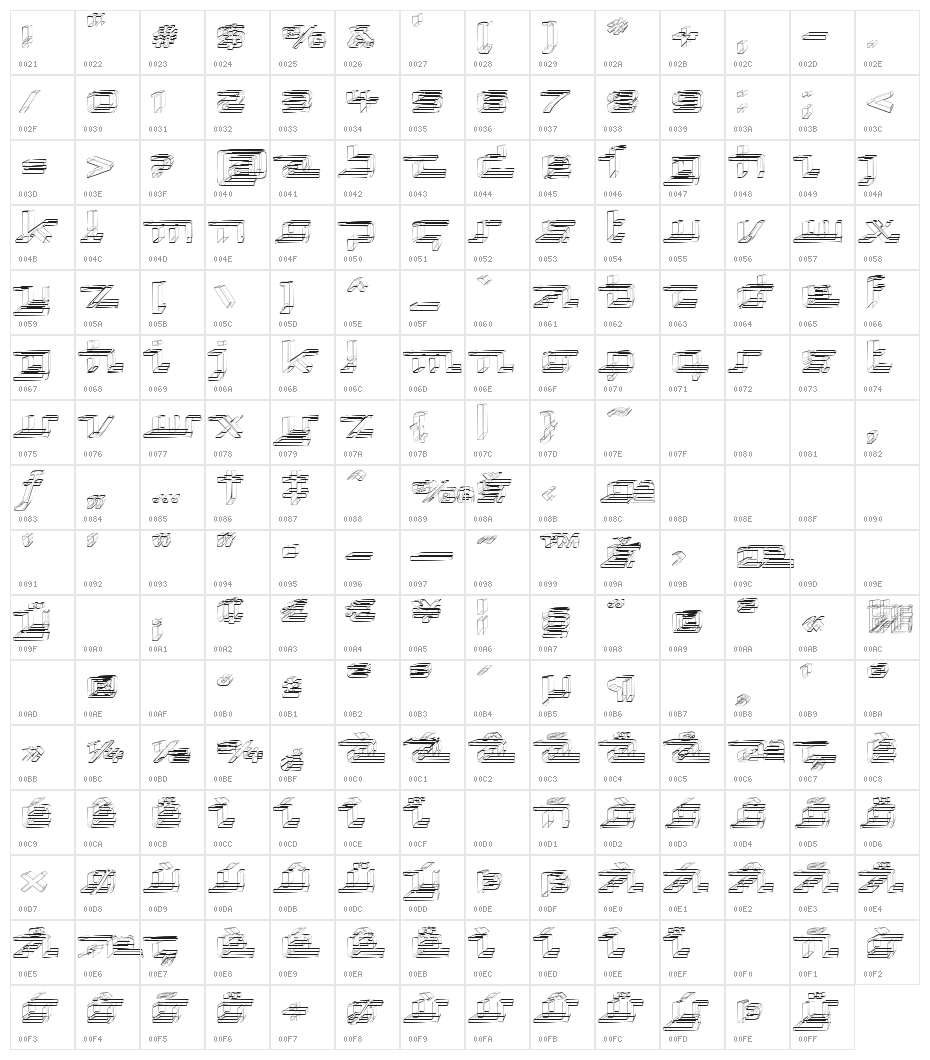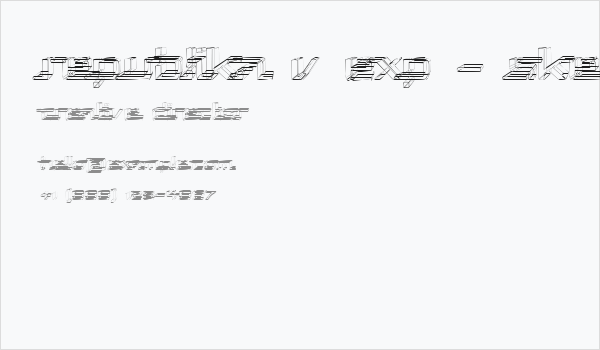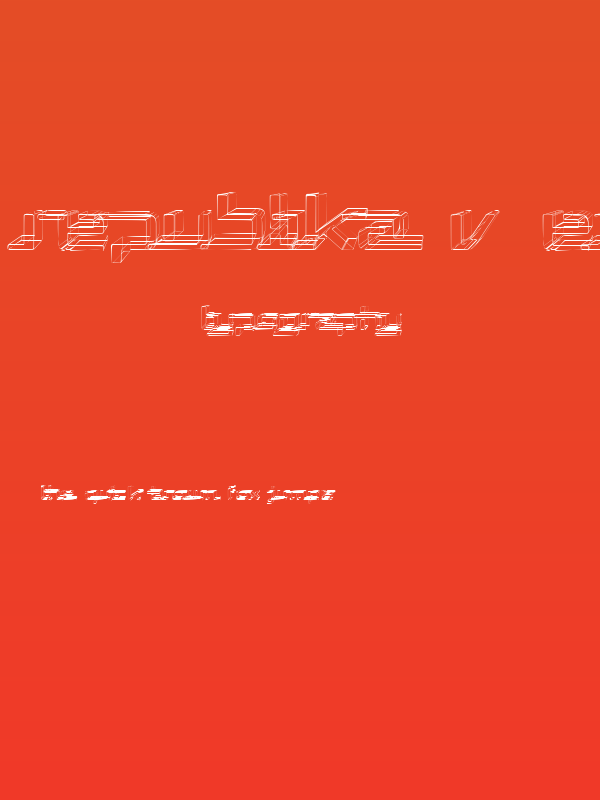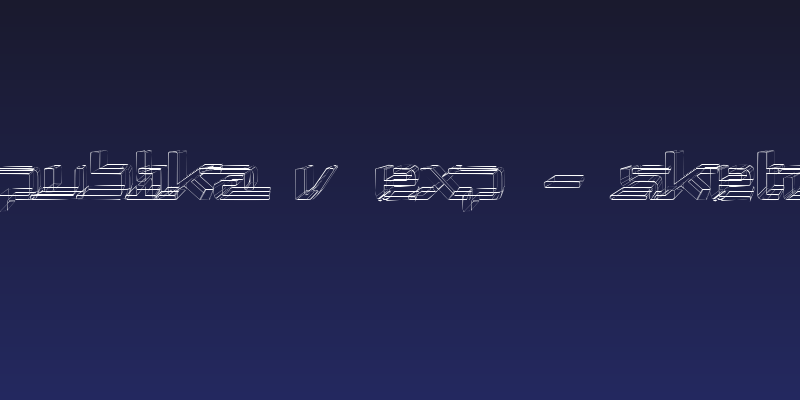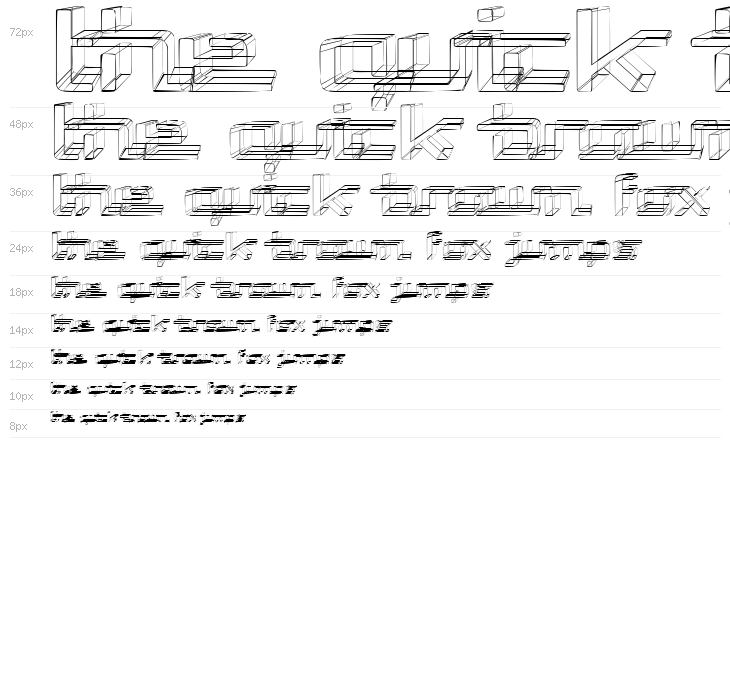
Republika V Exp - Sketch Font
Republika V Exp - Sketch Description
This font features a unique, sketch-like design with a three-dimensional effect. The characters are constructed with overlapping lines, giving a sense of depth and complexity. The style is geometric and modern, with each letter and number appearing as if it were drawn with a technical pen. The font maintains a consistent structure across both uppercase and lowercase letters, as well as numbers and special characters. The intricate line work creates a visually engaging texture, making it suitable for artistic and creative projects.
| Proposed Projects | Ideal for creative projects such as posters, album covers, digital art, and branding that require a distinctive and artistic touch. |